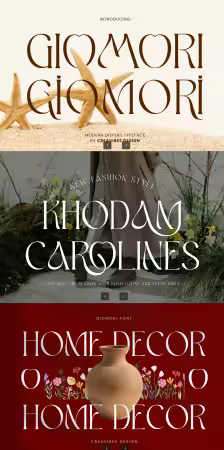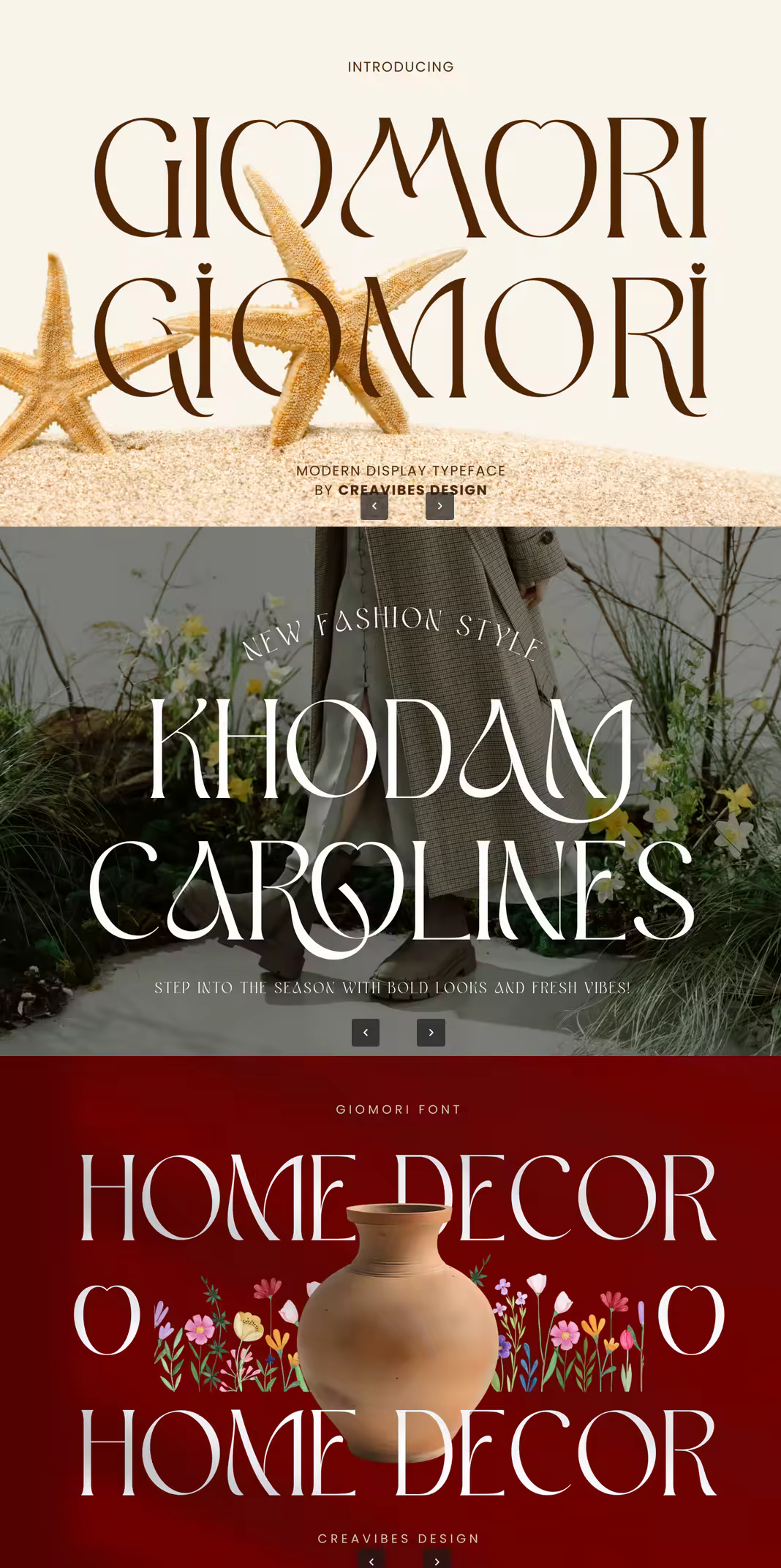
Giomori is a luxury serif font crafted to express elegance, class, and timeless beauty. With its refined letterforms, high-contrast strokes, and sophisticated details, this font is perfect for high-end branding, fashion editorials, premium packaging, magazines, and luxury logos. Giomori delivers a graceful and confident presence, making every design feel exclusive and polished.
Regular & Italic styles
Alternates & ligatures
Numerals & punctuation
Multilingual support